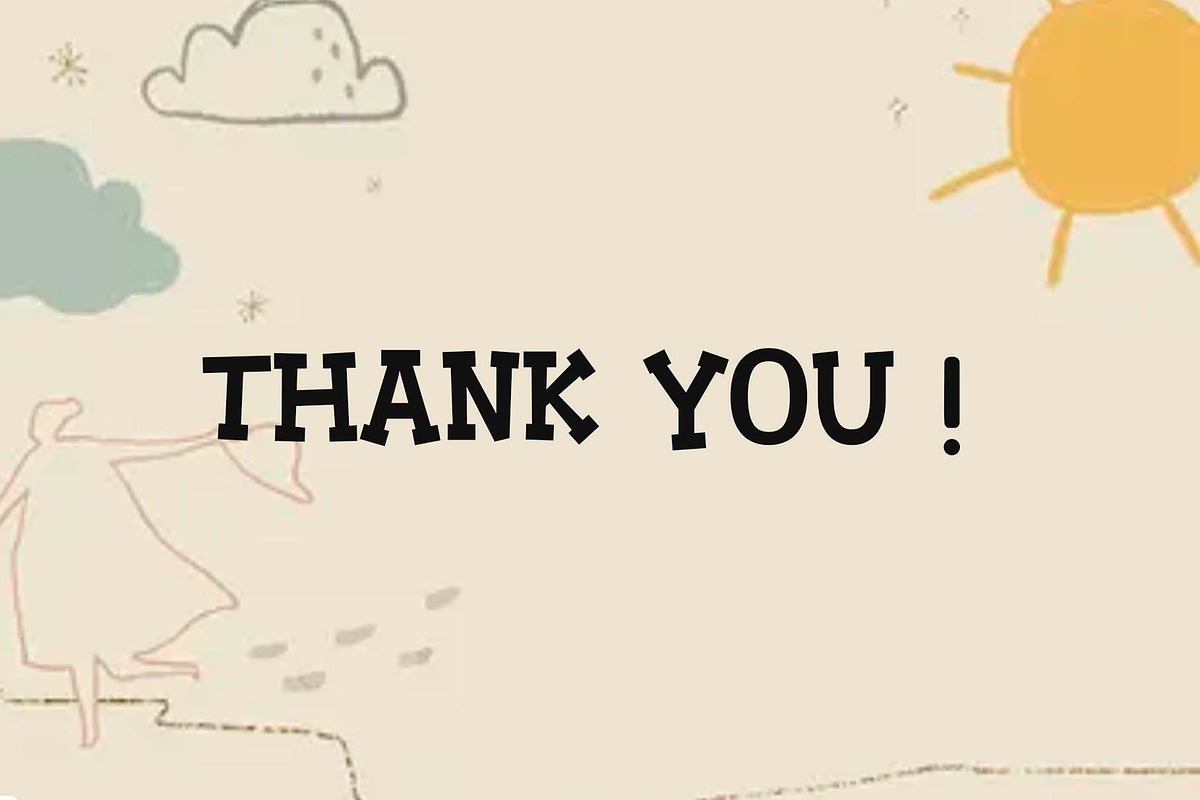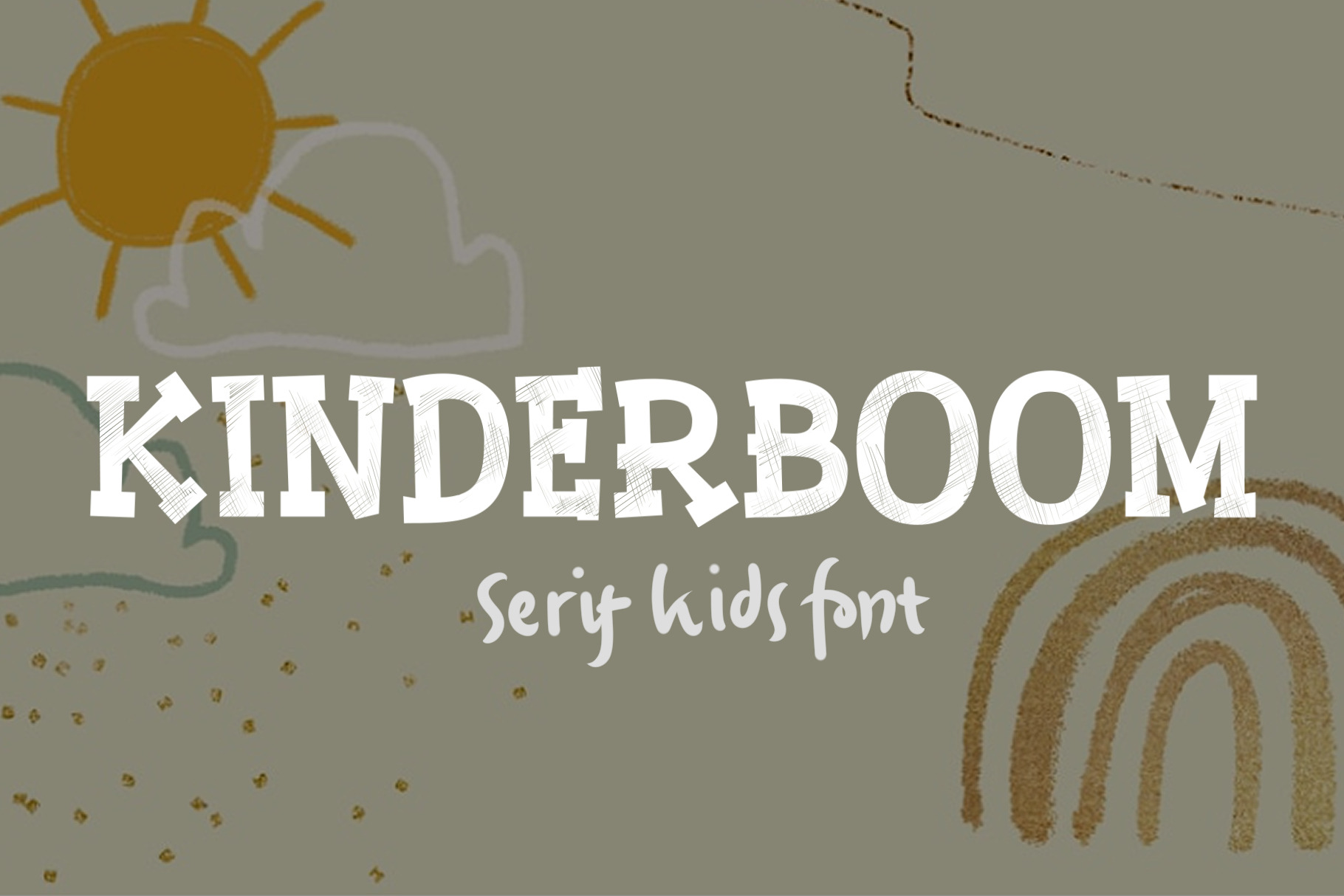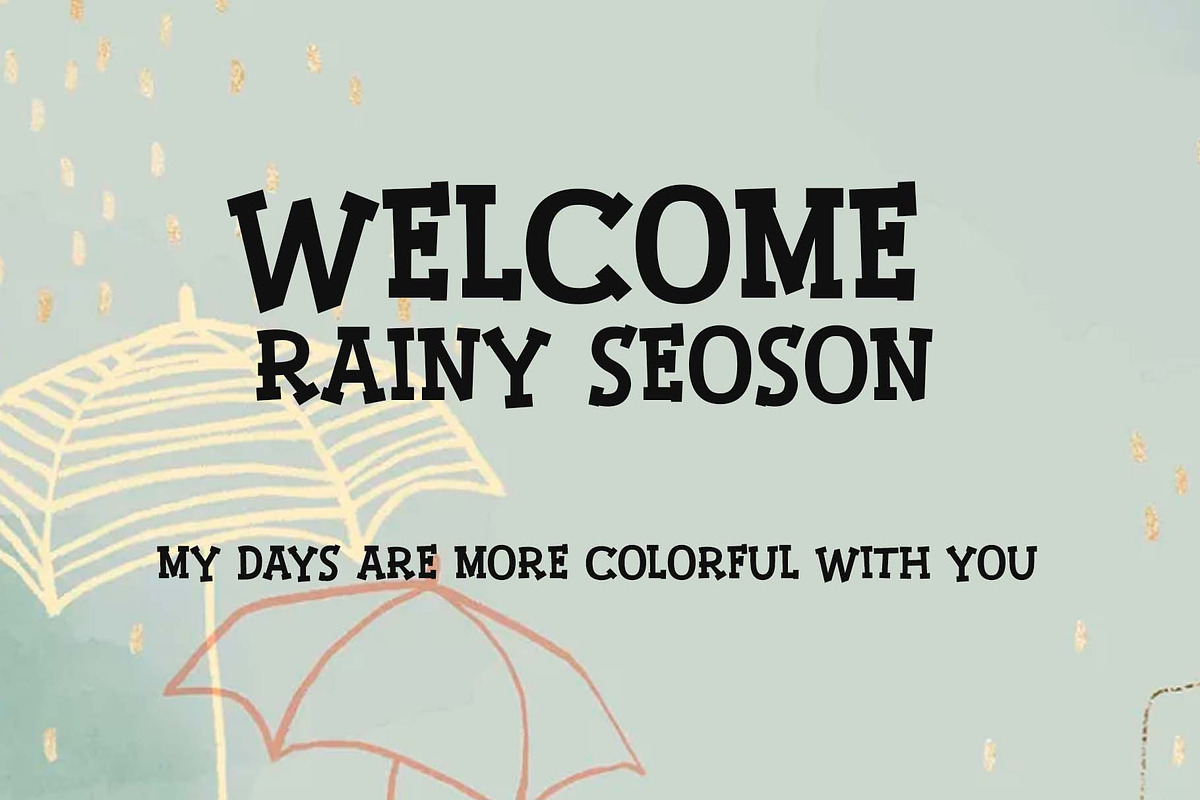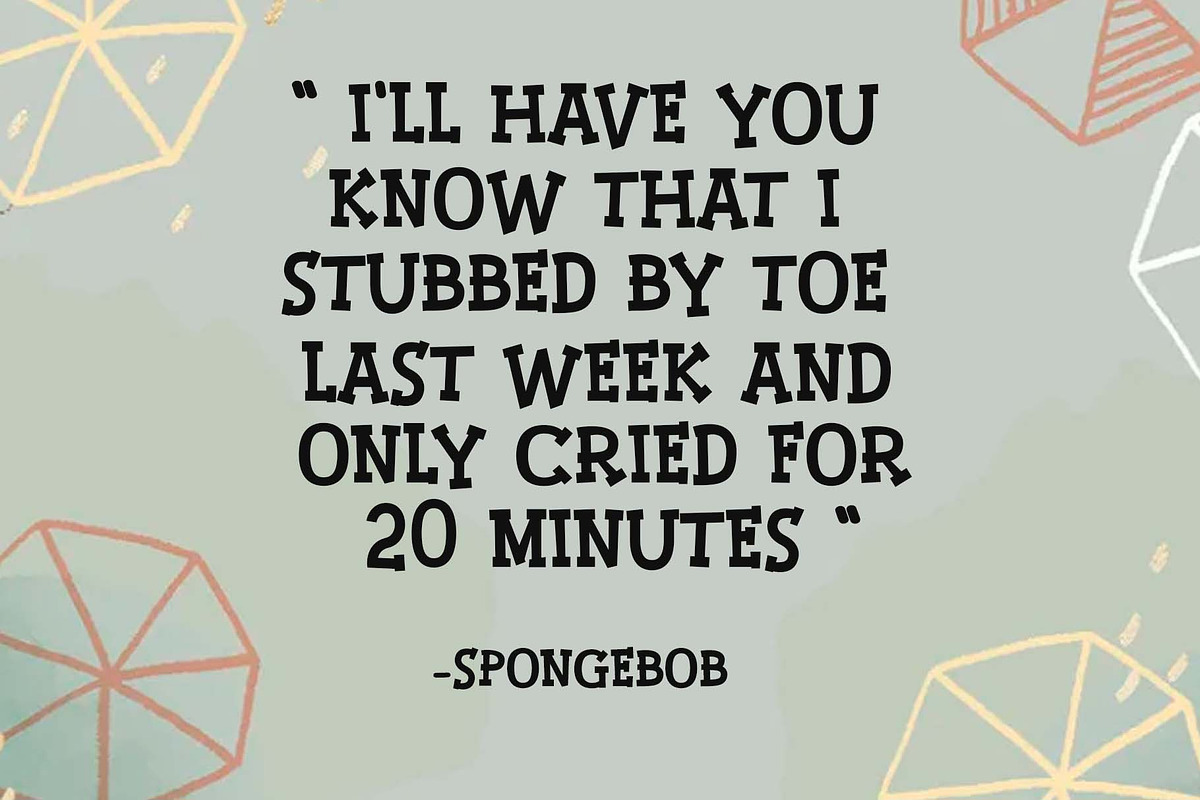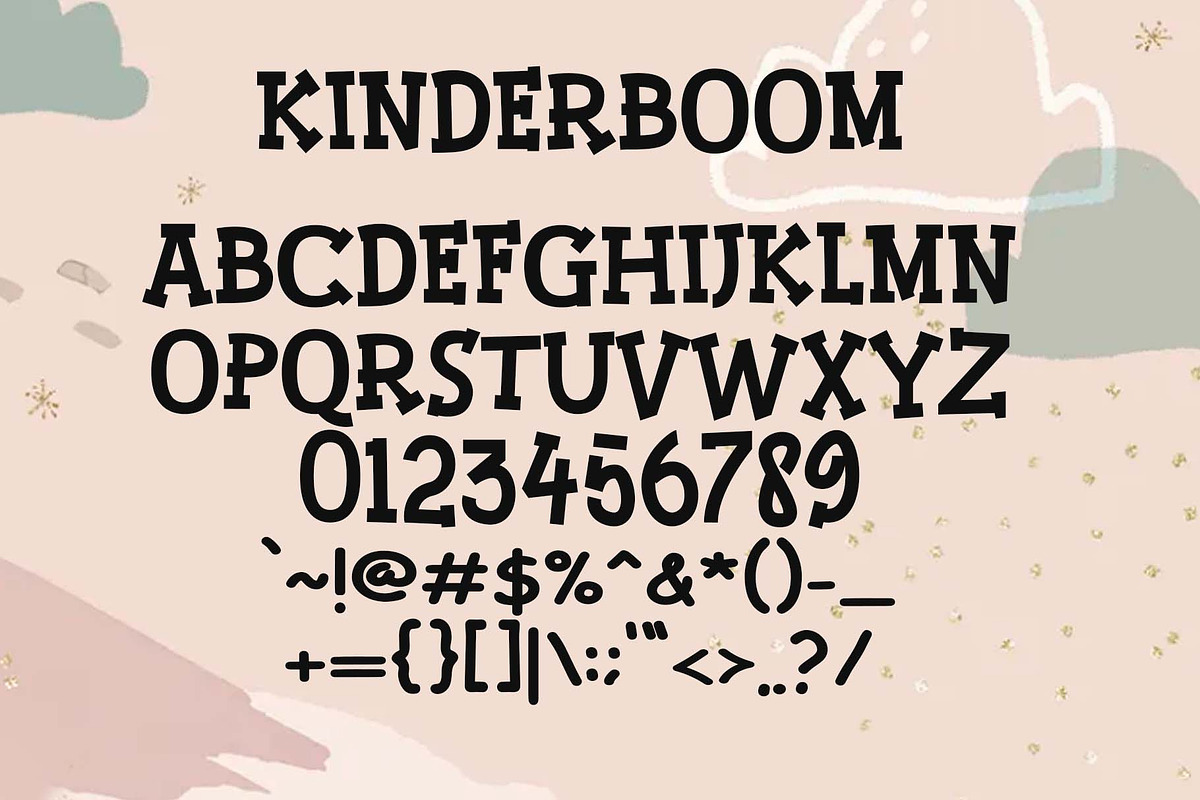
Kinderboom - Kids Font
Introducing Kinderboom, a simple, fun, and unique serif font. So perfect for you who needs a typeface for logo designs, magazine, social media, brochure, and many more.